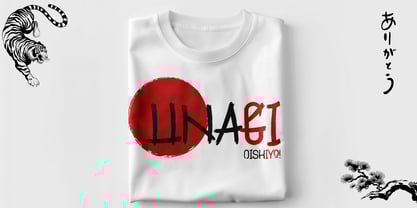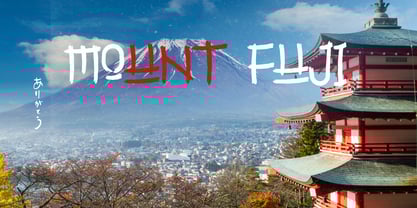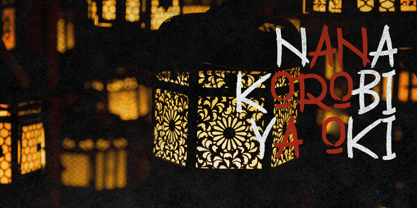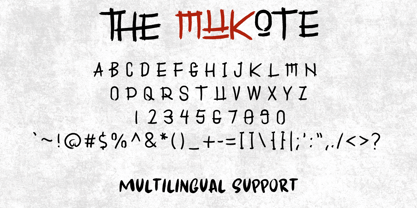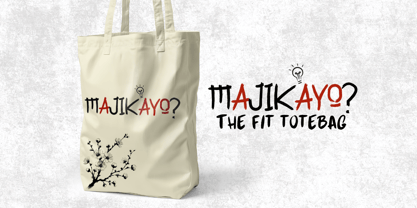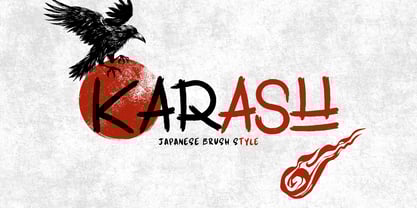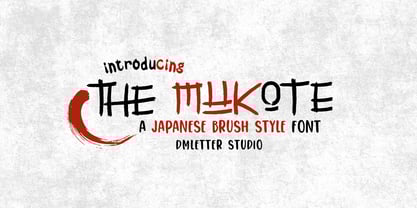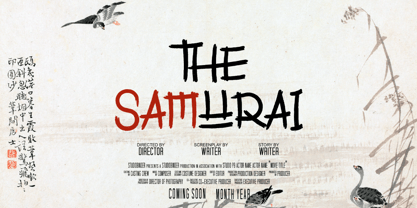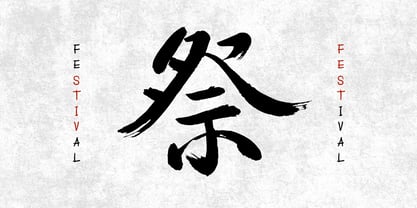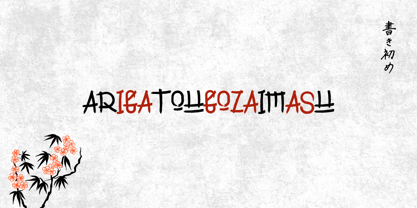
The Mukote
The The Mukote Font Family was designed by Dimas Prasetyo and published by DM Studio. The Mukote contains 1 styles. More about this family
The Mukote is a striking Japanese brush-style font inspired by traditional calligraphy and expressive brush strokes. Designed to capture the essence of Japanese aesthetics, this font is perfect for branding, restaurant menus, martial arts designs, posters, and any project that seeks an authentic hand-painted touch. Its bold and artistic strokes give your designs a powerful, dynamic, and cultural feel.
Features:
• Authentic Japanese Brush Style: Inspired by traditional calligraphy and ink brush techniques.
• Expressive and Bold Strokes: Perfect for impactful designs that need an artistic and handcrafted touch.
• Versatile Application: Ideal for restaurant branding, Asian-themed projects, posters, apparel, and more.
• Uppercase and Lowercase Letters: Allows for creative flexibility.
• Punctuation and Symbols: Includes a complete set of essential characters.